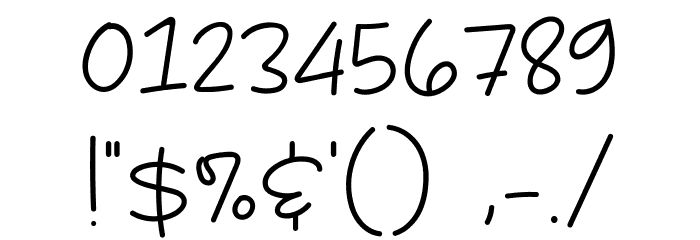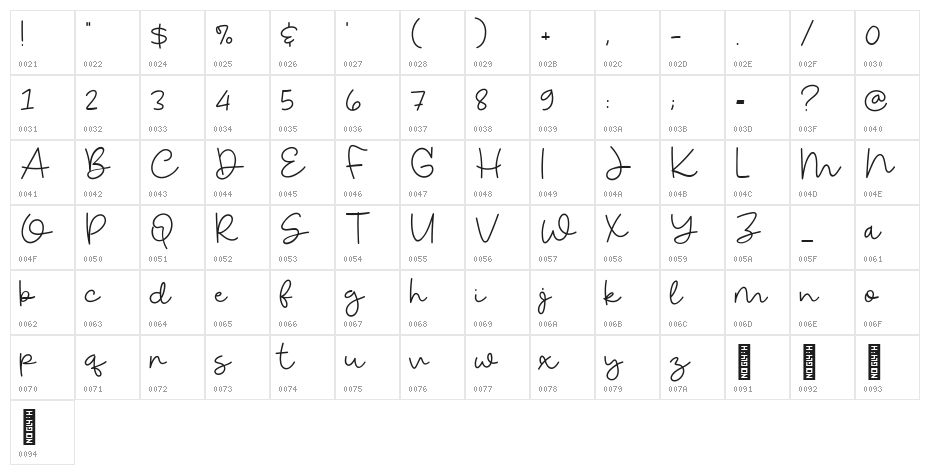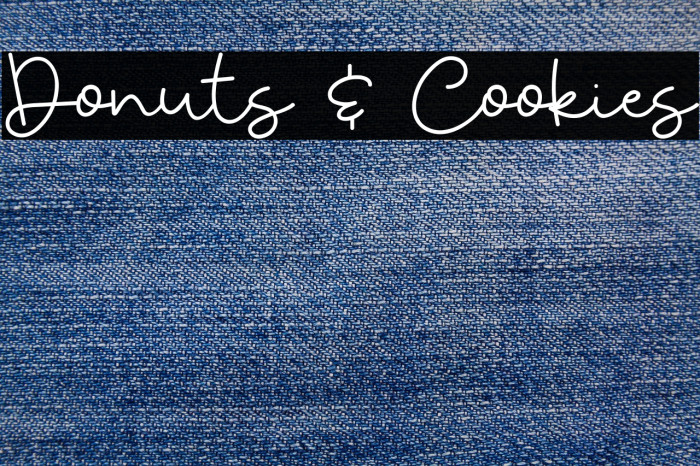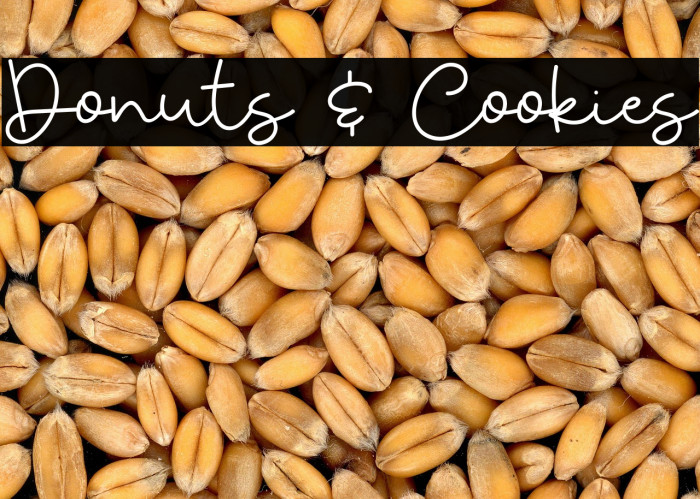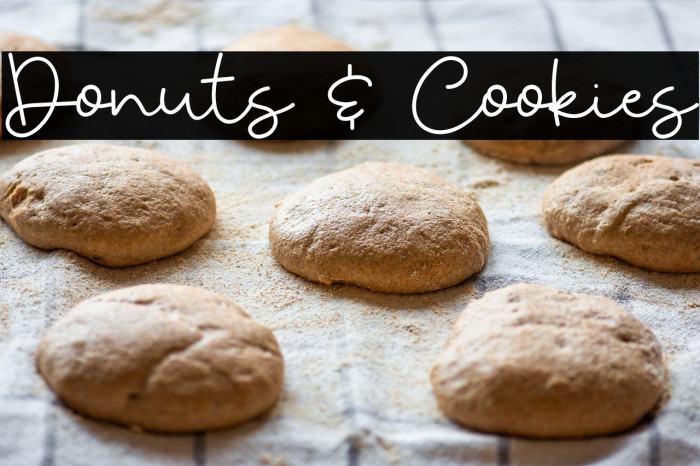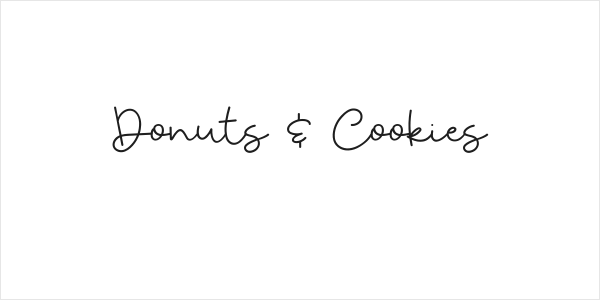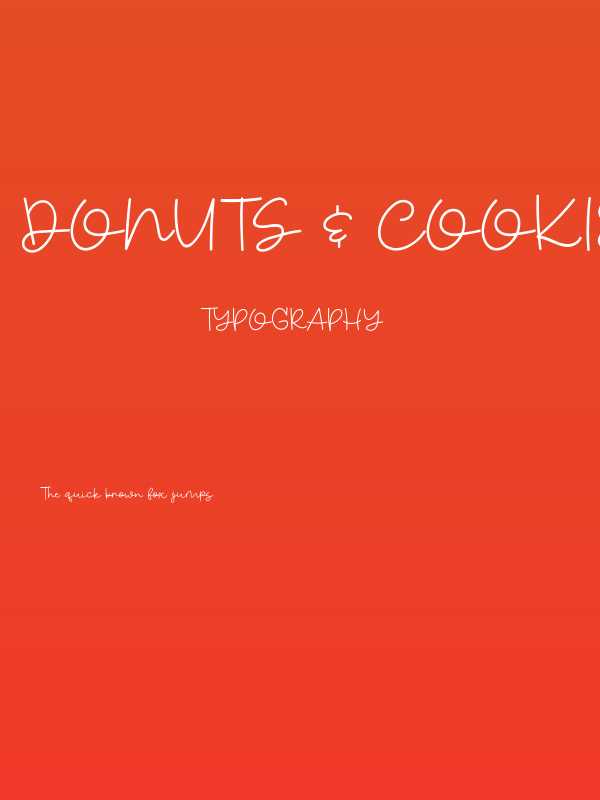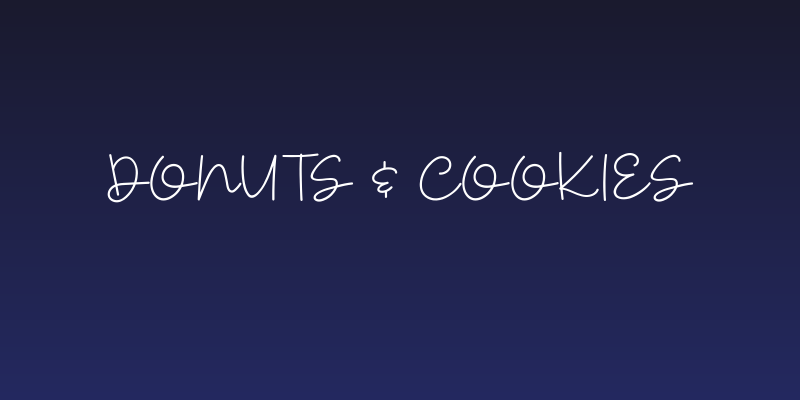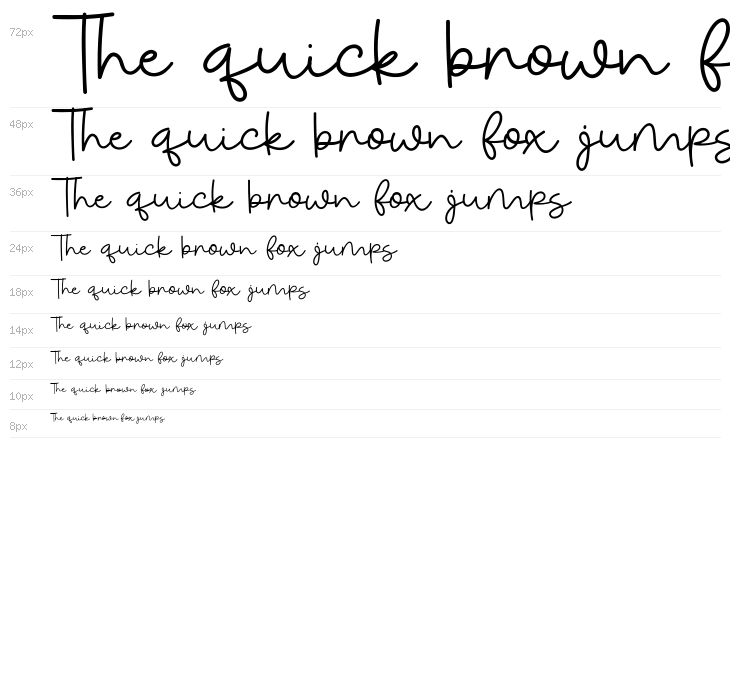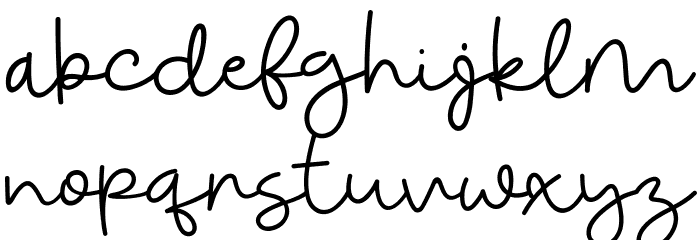
Donuts & Cookies Font
Donuts & Cookies Description
This playful and whimsical font features a handwritten style with a casual and friendly appearance. The characters are connected in a fluid manner, giving it a natural and organic look. The uppercase letters maintain a consistent height, while the lowercase letters have a charming irregularity that adds to its informal charm. The numbers and special characters are crafted with the same playful touch, making them blend seamlessly with the rest of the font. This font is perfect for projects that require a personal and approachable feel, such as greeting cards, invitations, and creative branding.